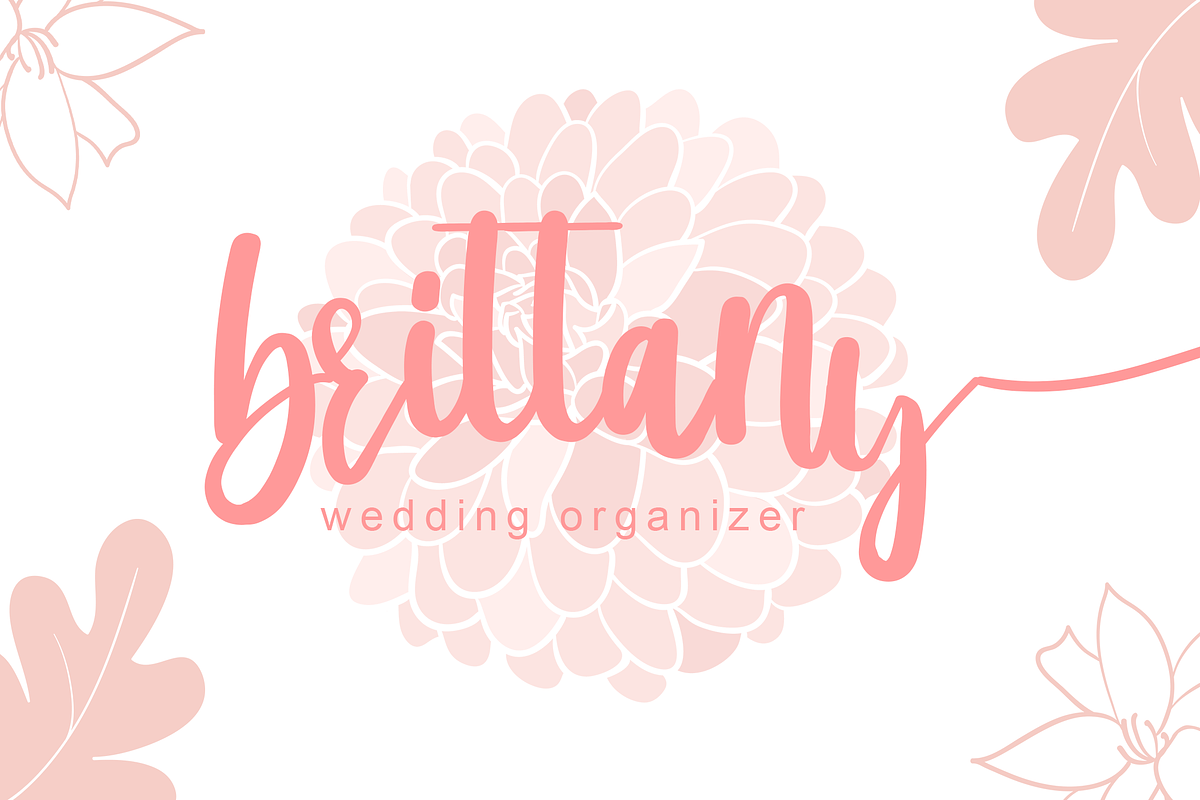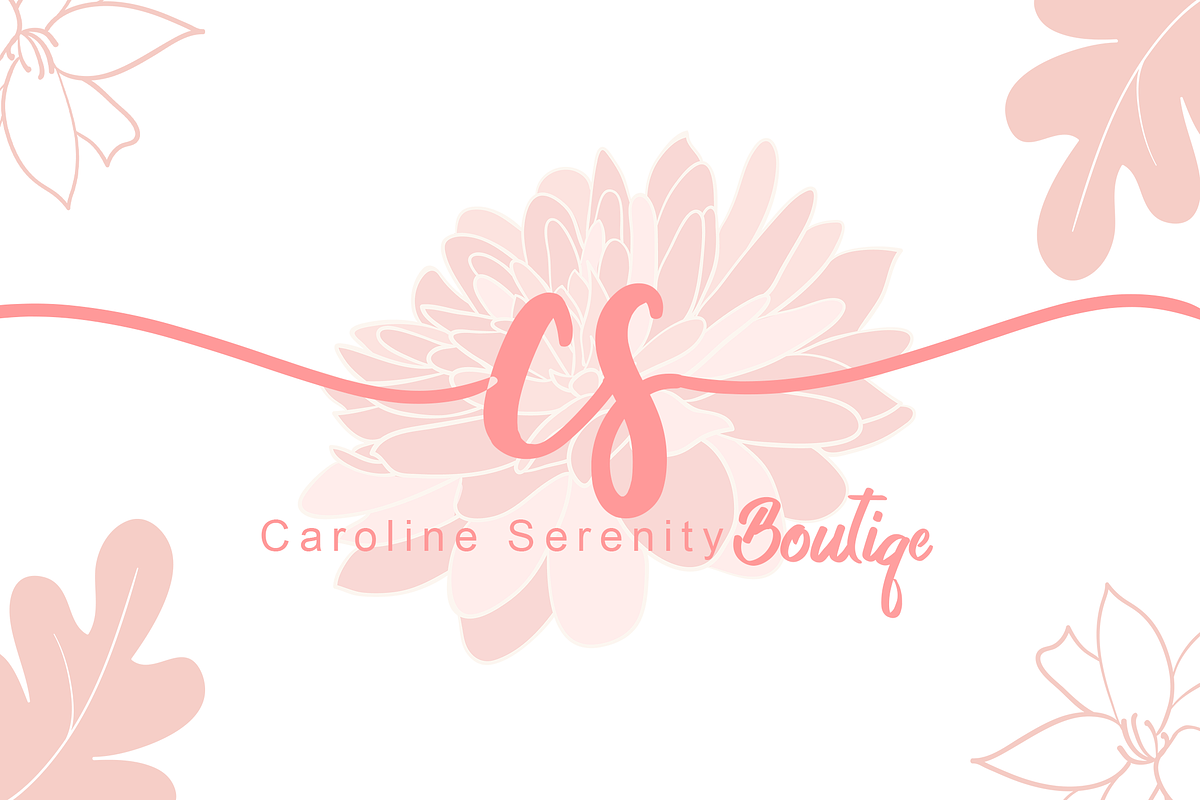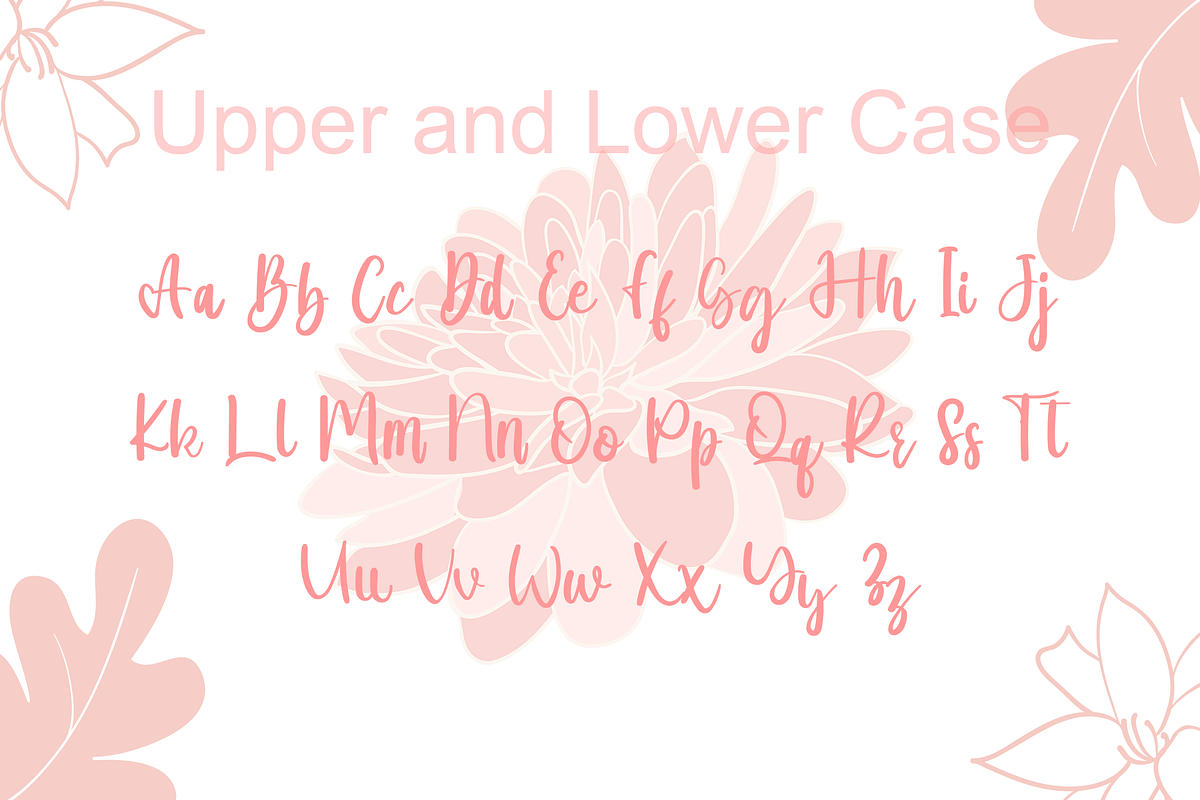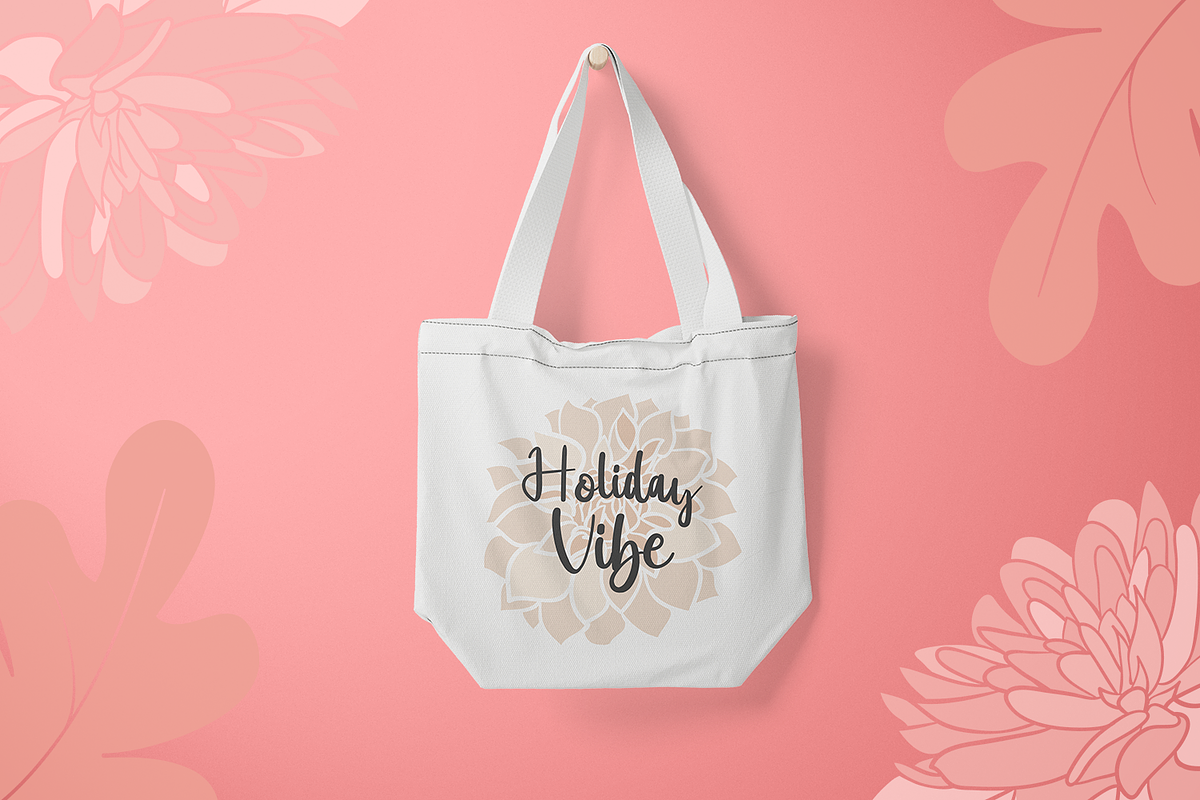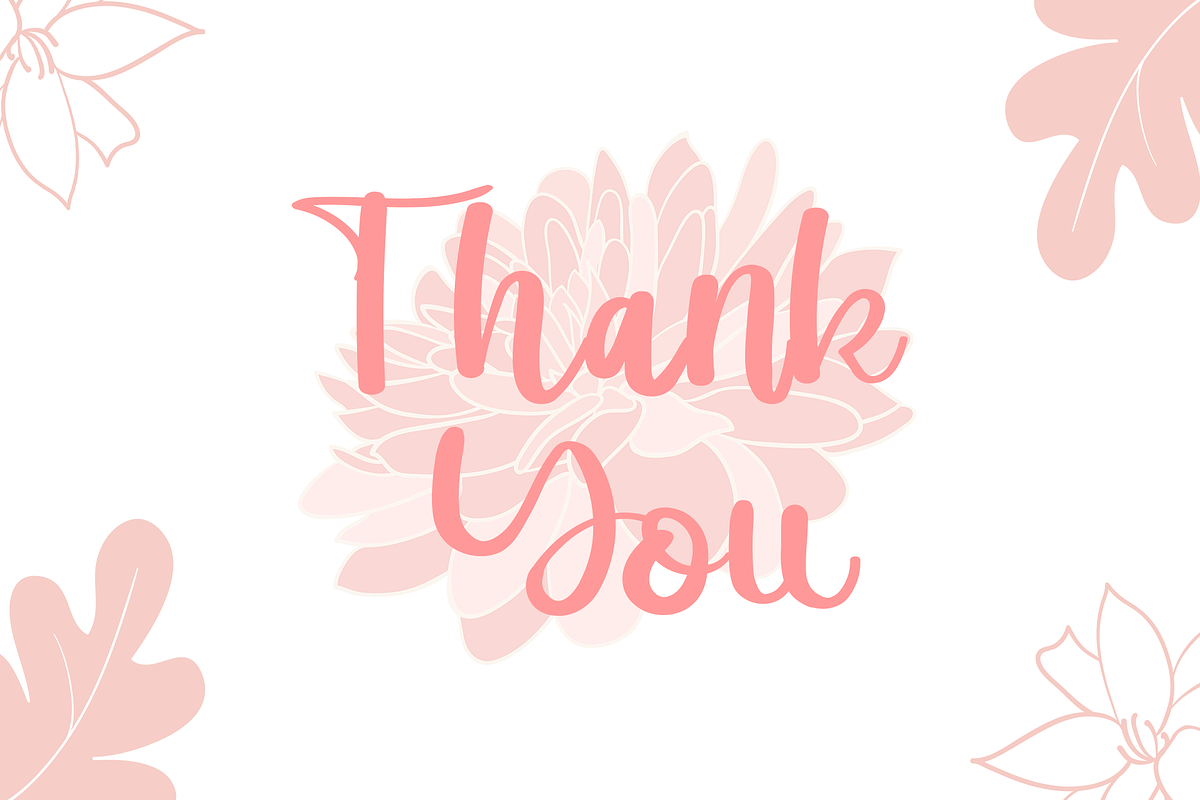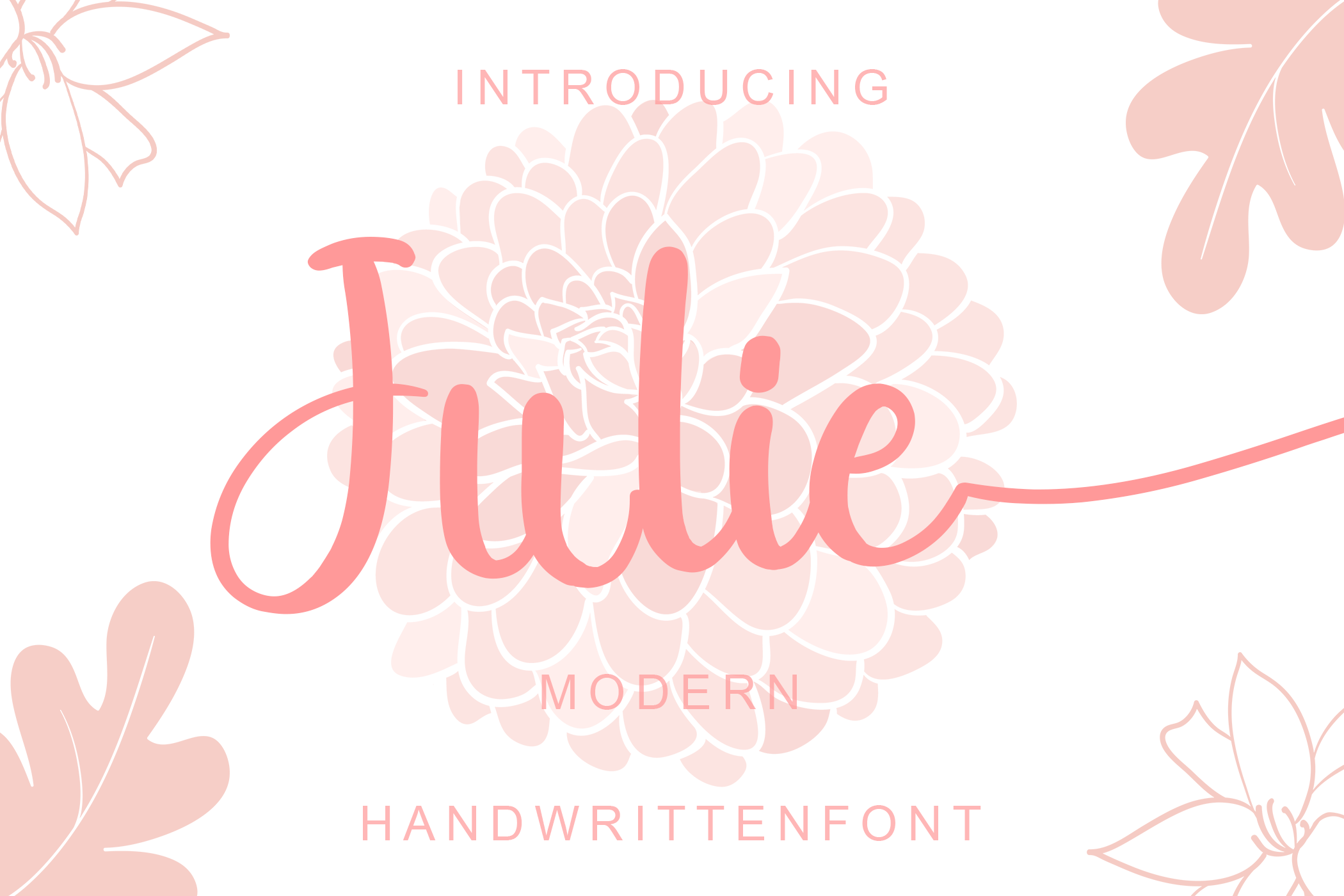
Julie Script Font
Julie is a stylish and incredibly elegant script font. It looks stunning on wedding invitations, thank you cards, quotes, greeting cards, logos, business cards and every other design which needs a customized touch. This font is PUA encoded which means you can access all of the glyphs and swashes with ease! Font Features:
- Upper and Lowercase
- Number and Punctuation
- Ending Swashes